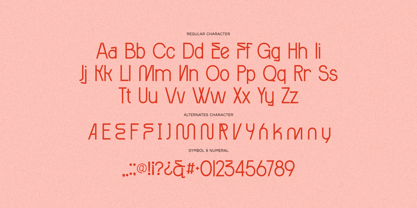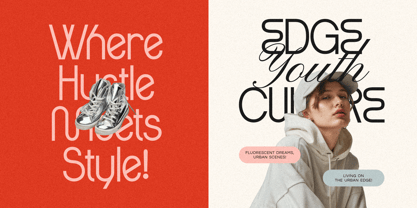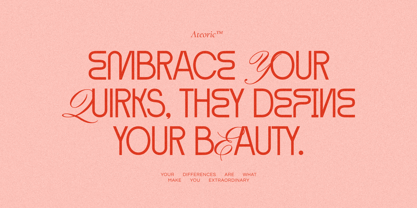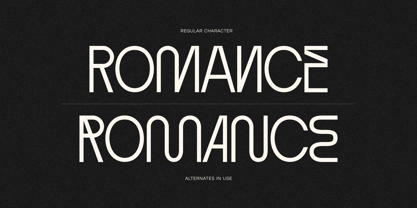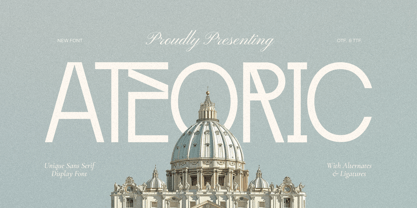
Ateoric
by Imoodev
The Ateoric Font Family was designed by Aulia Savira Putri and published by Imoodev. Ateoric contains 1 styles. More about this family
Introducing ATEORIC, a unique, sophisticated, and versatile sans serif typeface designed to enhance your creative projects. This typeface harmoniously combines elements of timeless baroque-inspired sans serif with modern sans serif, featuring curved cuts that elevate the artistic appeal of the font, creating a typeface that is both captivating and adaptable.
Designers: Aulia Savira Putri
Foundry: Imoodev